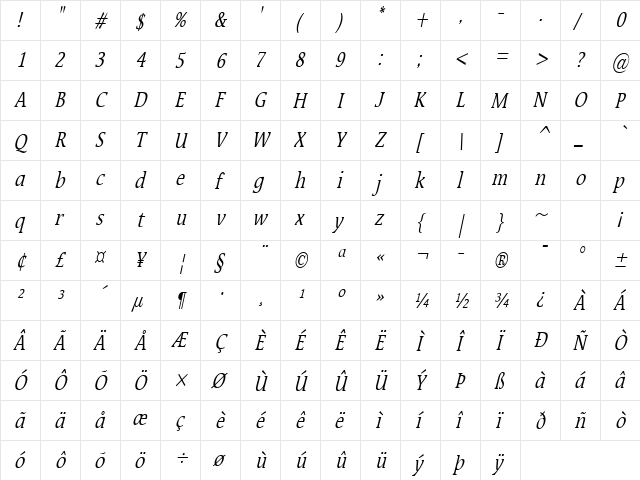
Mirror Thin Italic Font Preview
Design Context for Mirror Thin Typeface
Mirror Thin takes a measured approach to typography — its balanced proportions and neutral character make it a reliable workhorse for both digital and print work. The dynamic lean of this cut emphasises speed and emphasis in any layout. Its slender proportions lend an understated elegance to any composition.
Pro Tip: Try Mirror Thin for annotation and caption copy alongside an upright companion — the contrast in angle creates a dynamic but ordered typographic system.